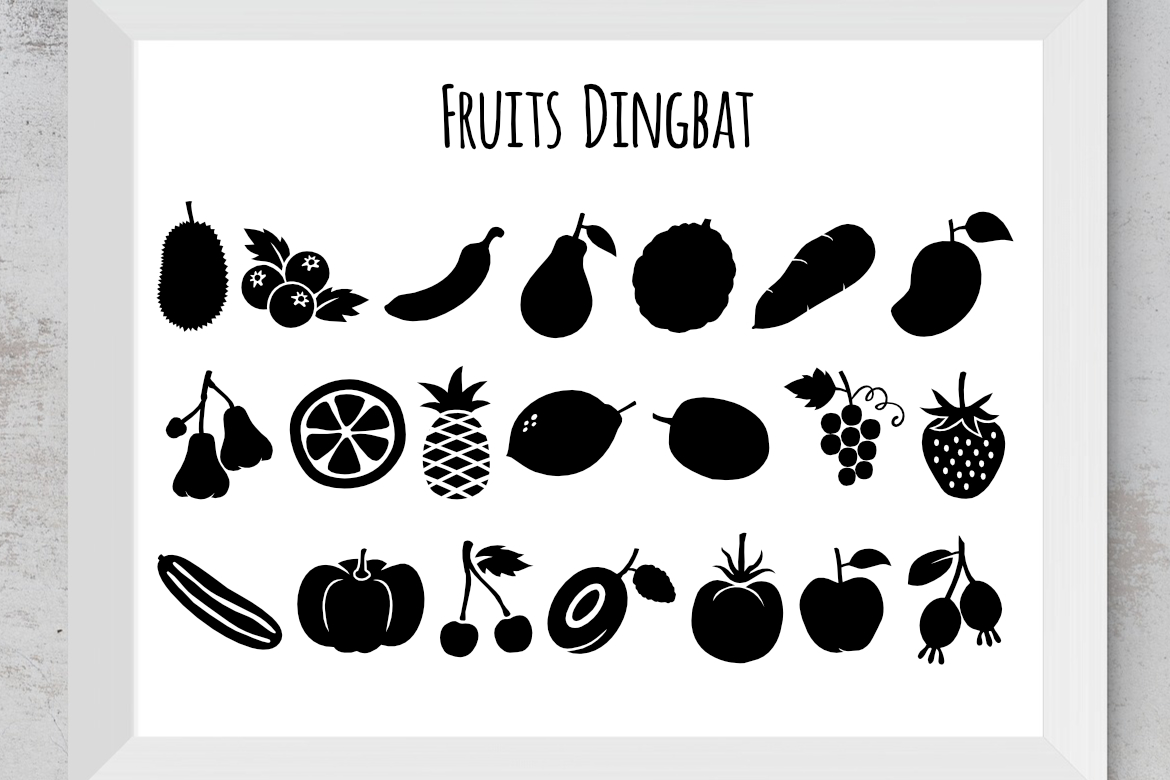
Fruits Dingbat Font
About Fruits Dingbat Font
Introducing the Fruits Dingbat Font: Adding a Burst of Freshness to Your Designs!
Looking to infuse your designs with a burst of color and freshness? The Fruits Dingbat Font is the perfect choice! This cute and fun dingbat set offers a delightful collection of fruit-themed design assets that will anchor your designs in stunning and well-crafted elements.
The Fruits Dingbat Font features a variety of juicy fruits, including apples, oranges, strawberries, pineapples, grapes, and more. Each dingbat is intricately designed to capture the vibrant colors, textures, and shapes of these delicious fruits, bringing a delightful touch to your projects. With a simple keystroke, you can effortlessly incorporate these fruity elements into your designs.
Whether you’re working on packaging designs, recipe cards, summer-themed invitations, or even creating a fruity pattern, the Fruits Dingbat Font offers endless possibilities. You can easily mix and match the fruit elements, resize them, and arrange them to create captivating compositions that are sure to make your designs stand out.
Using the Fruits Dingbat Font is as easy as typing a letter or symbol on your keyboard. Each character corresponds to a unique fruit element, allowing you to explore different combinations and create eye-catching designs. The font provides you with the flexibility to experiment and tailor the look of your designs to suit your creative vision.
With its cute and fun design assets, the Fruits Dingbat Font brings a sense of playfulness and freshness to your designs. Whether you’re designing for a fruity-themed event, a healthy lifestyle brand, or simply want to add a touch of whimsy to your artwork, this font is a fantastic tool to have in your design arsenal.